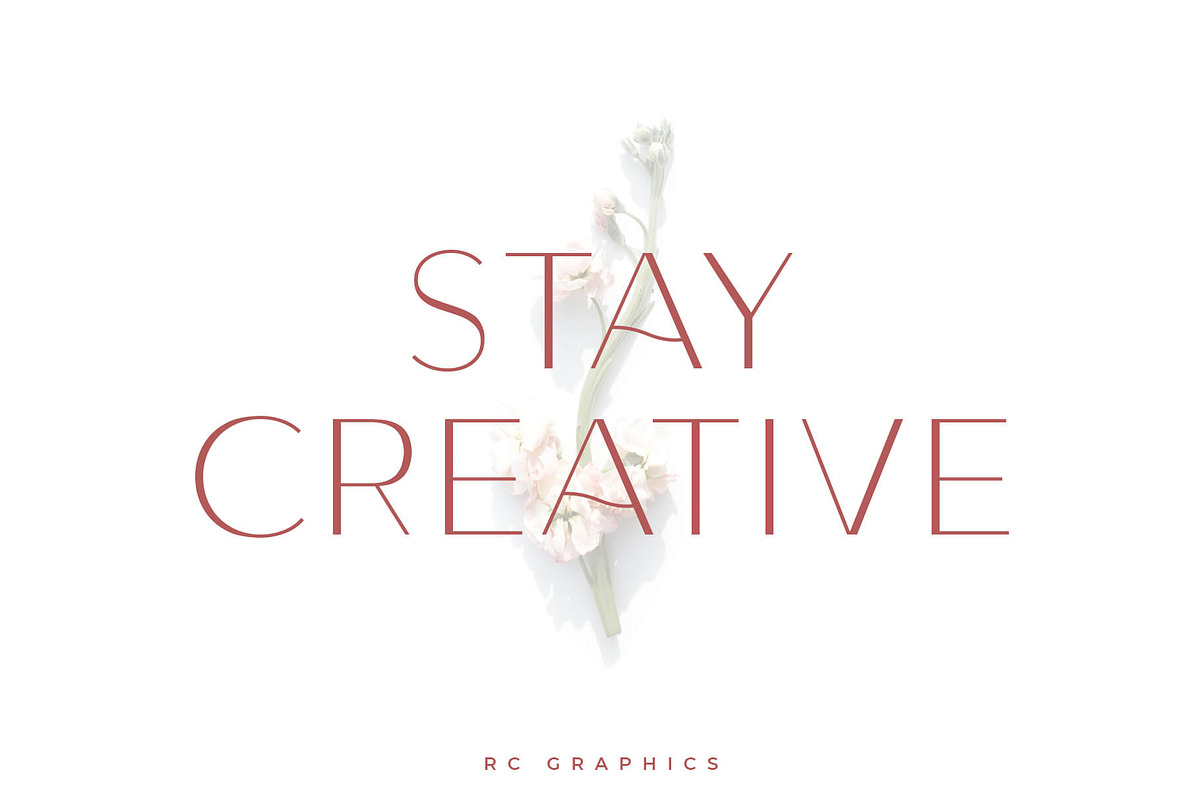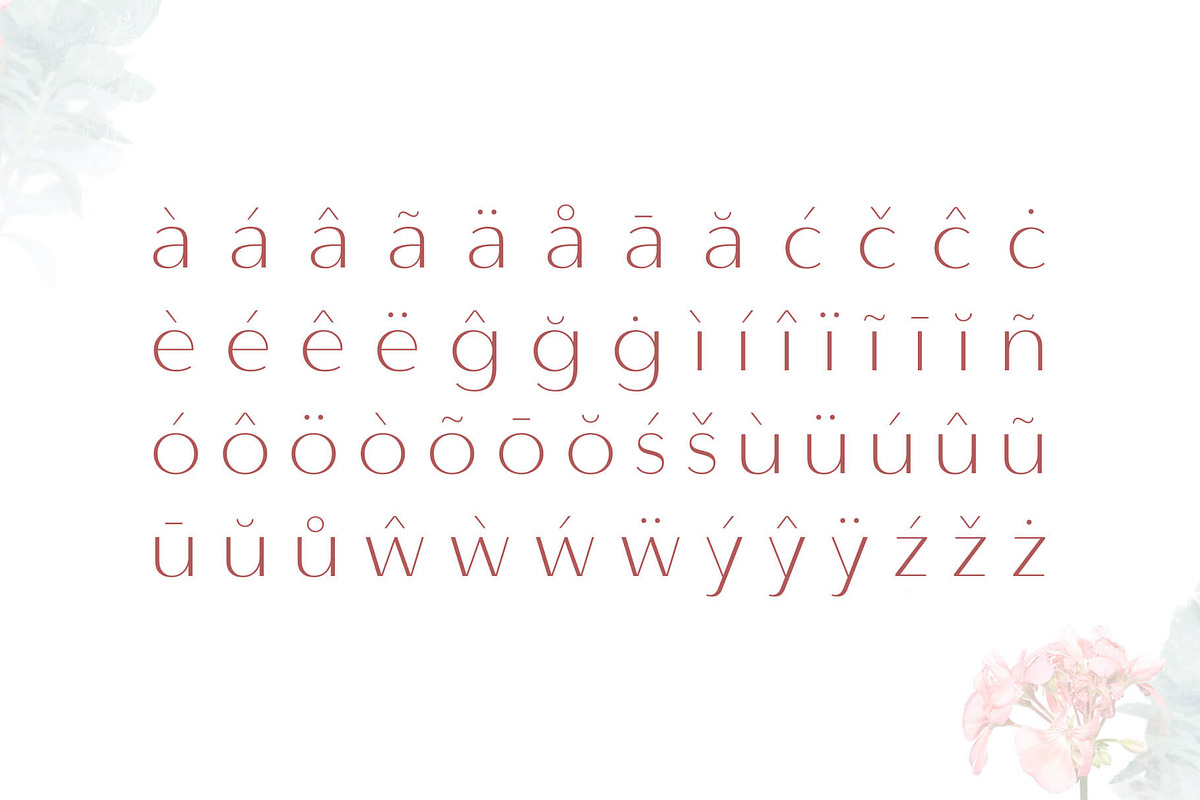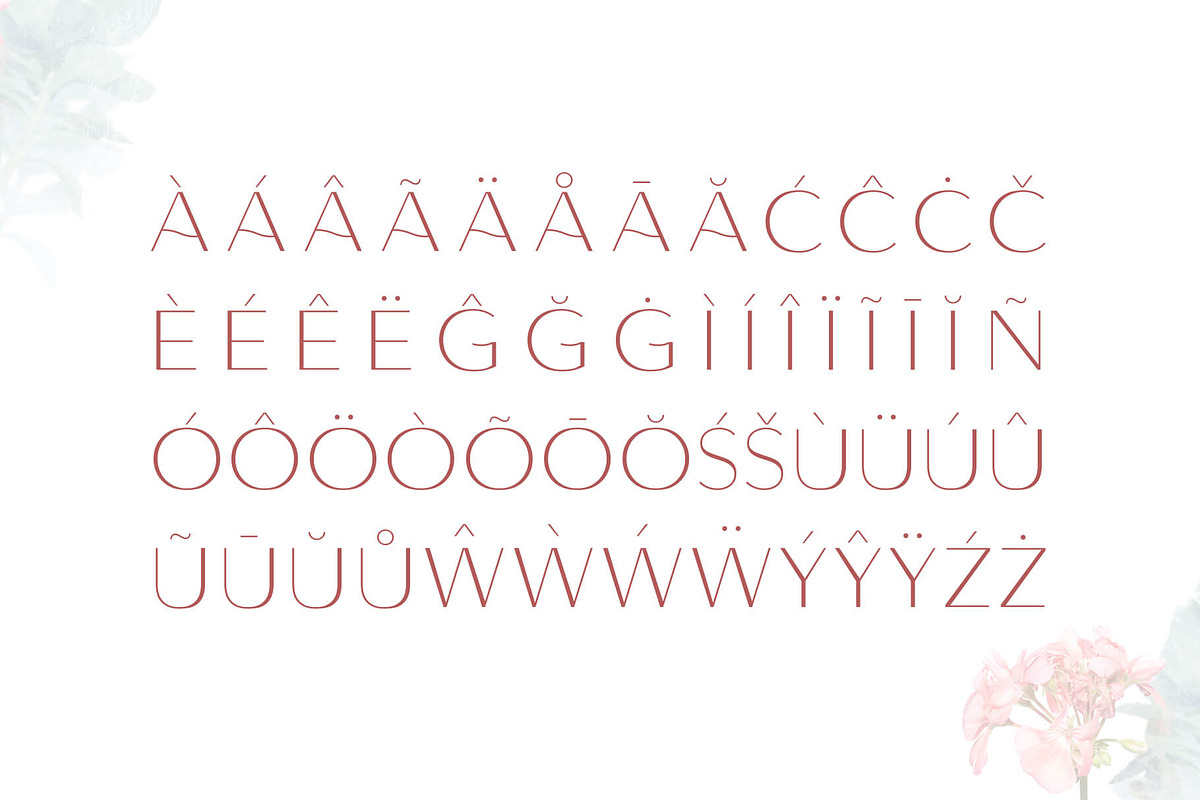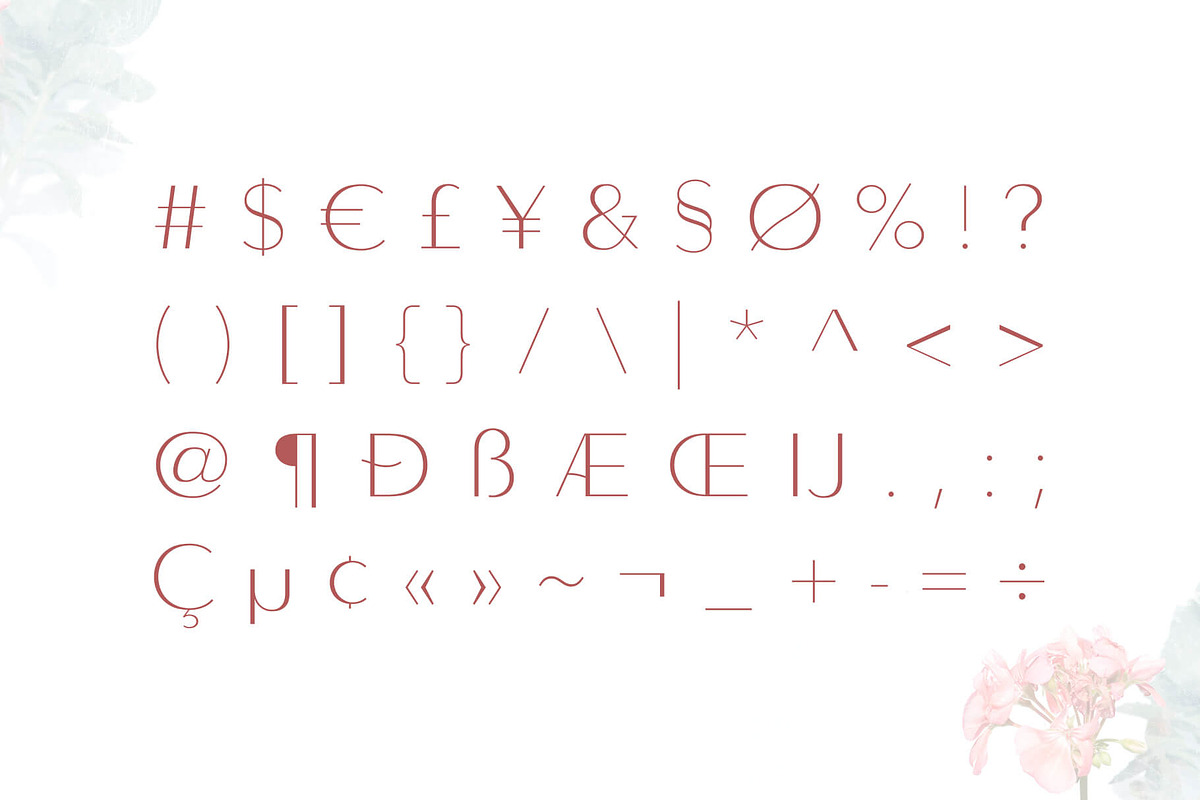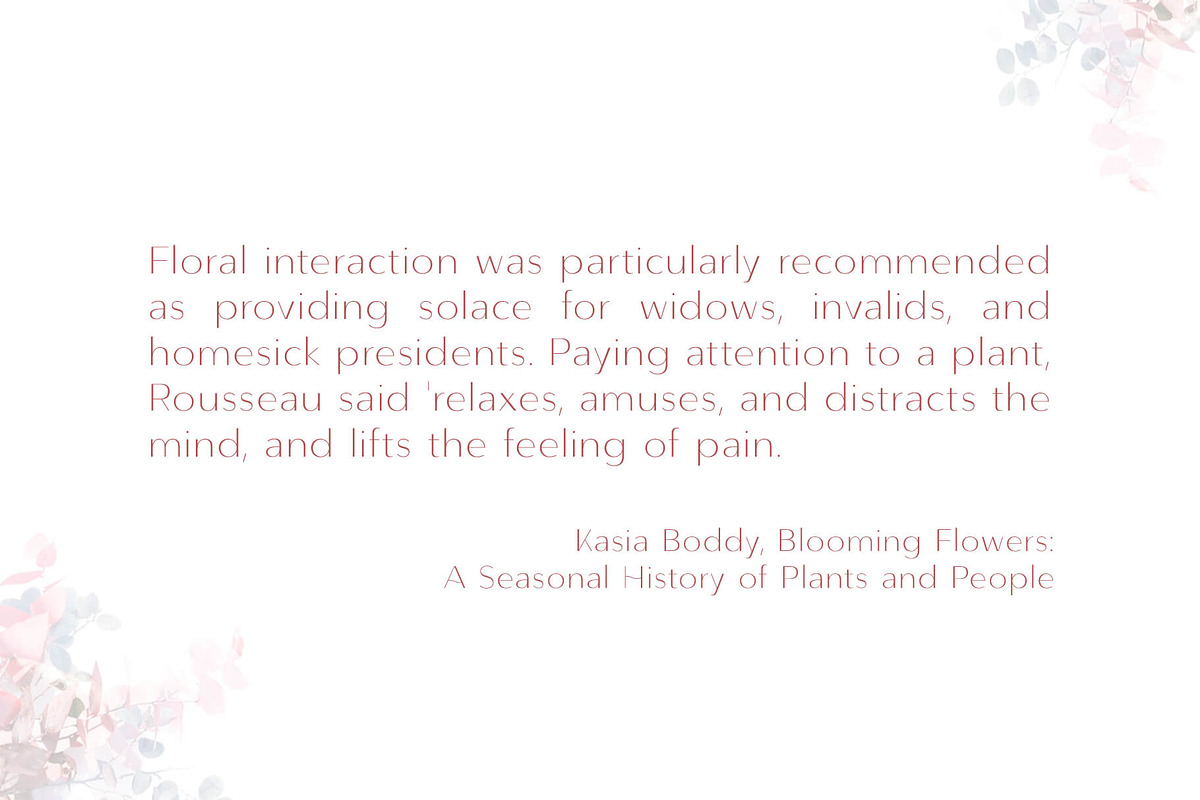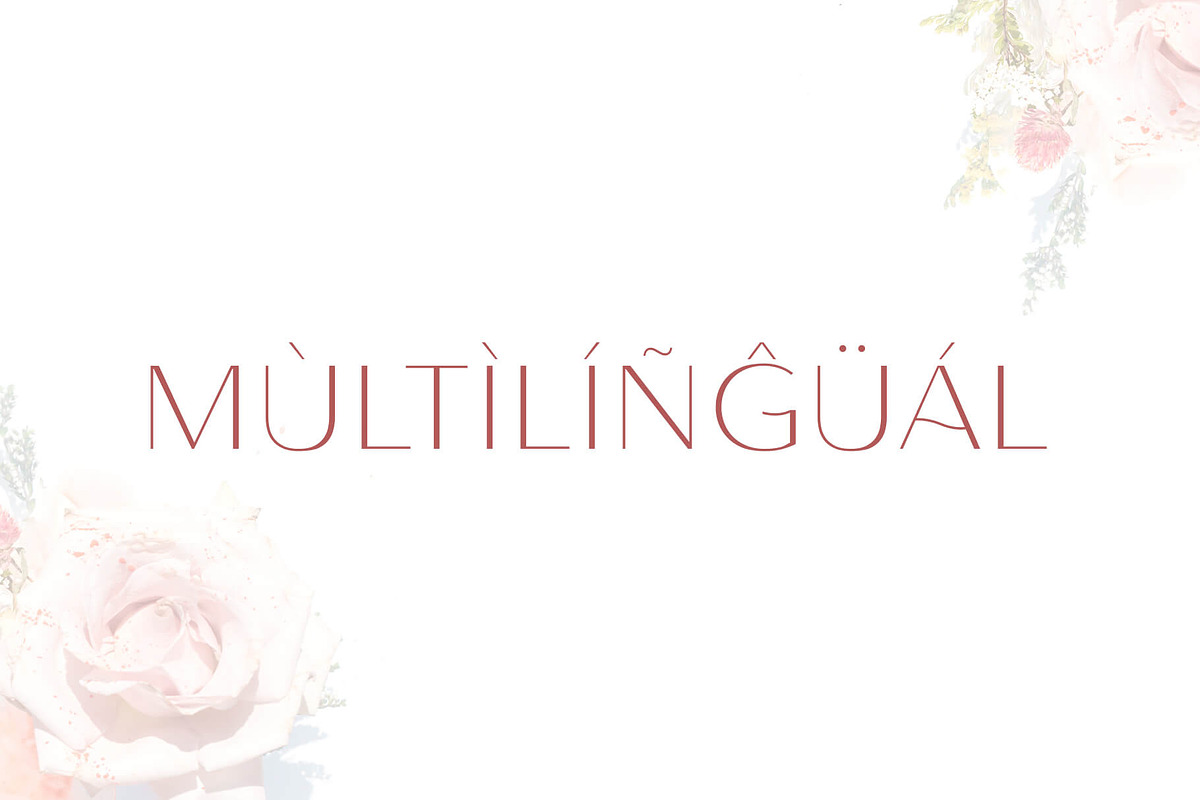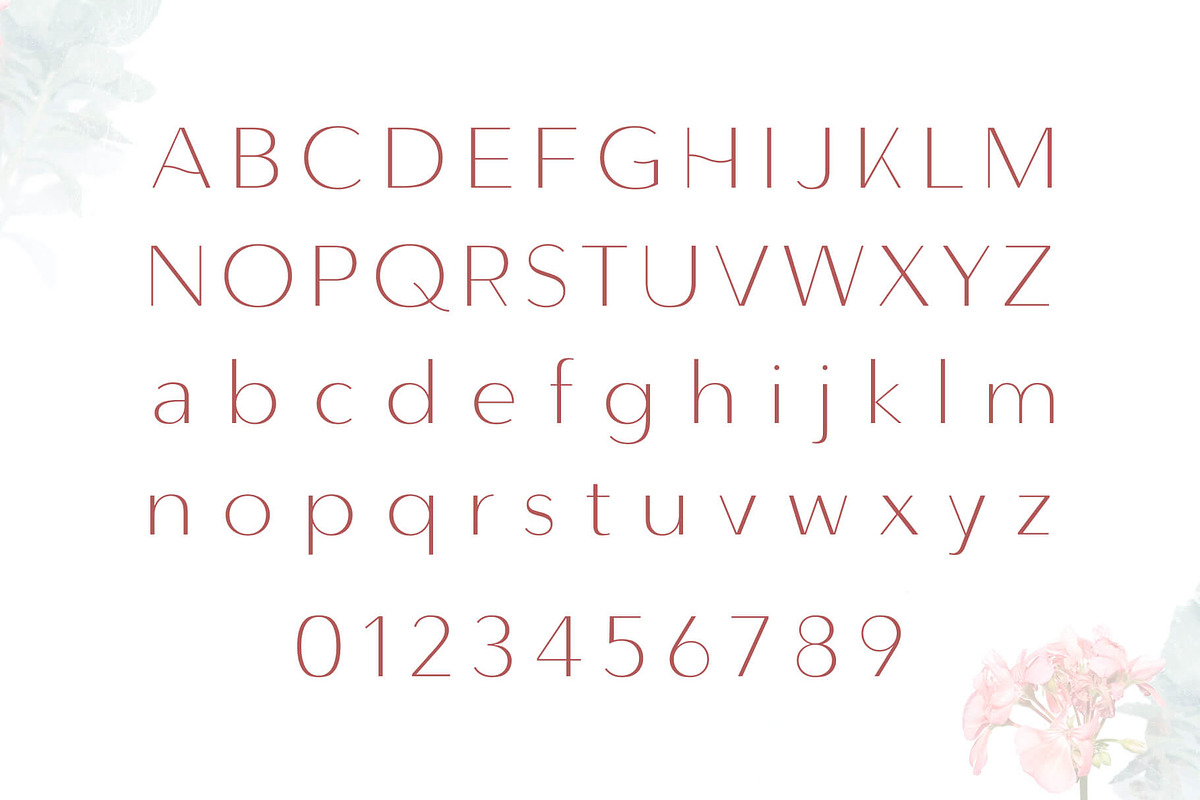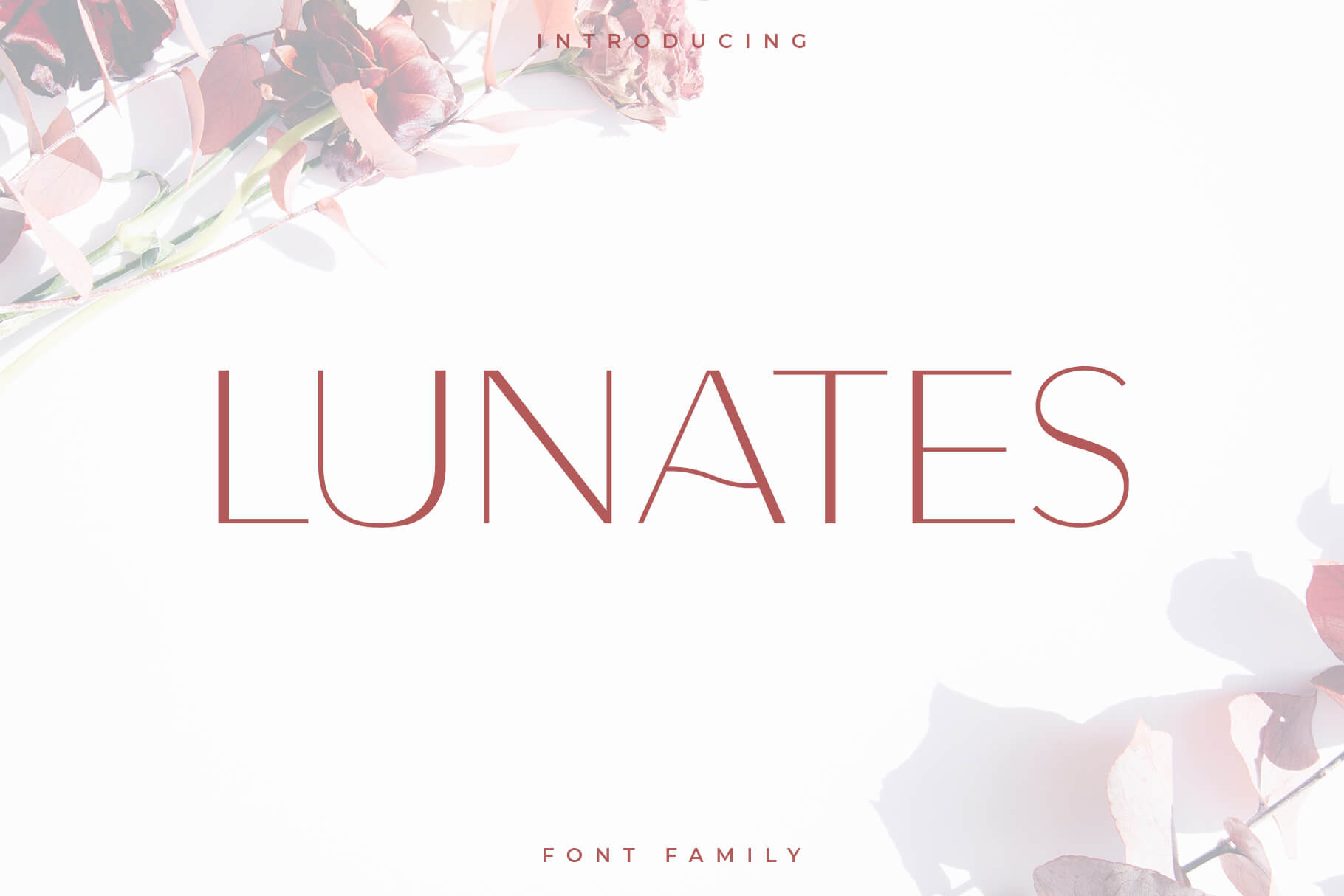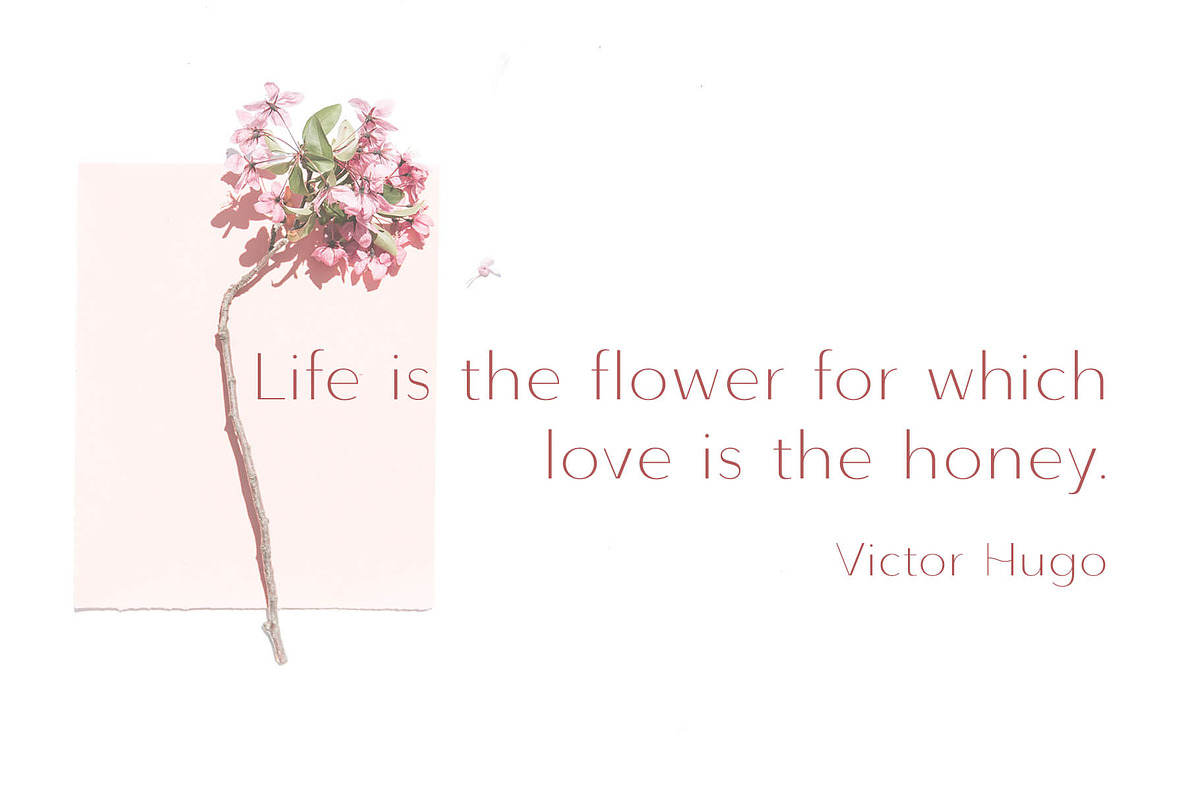
Lunates Font Family – Sans Serif
Lunates is an elegant and clean sans serif font. It’s a versatile font family designed for strong, classic branding. Lunates is perfect for any branding, logos, magazines, videos, weddings, quotes, print, product packaging, website, clothing designs and much more.
- Uppercase letters
- Lowercase letters
- Multilingual (Foreign language characters)